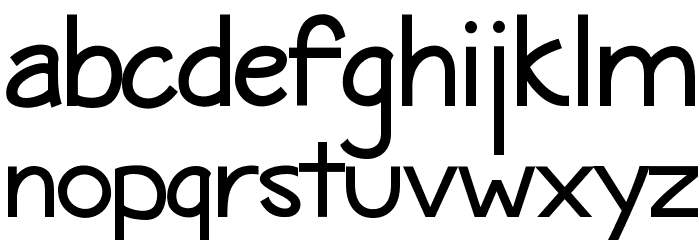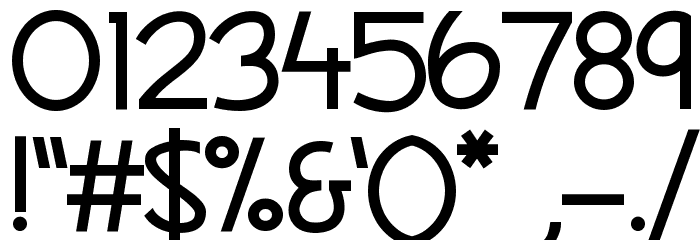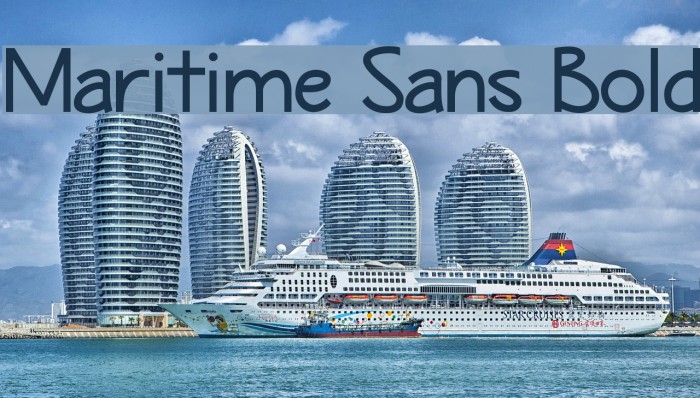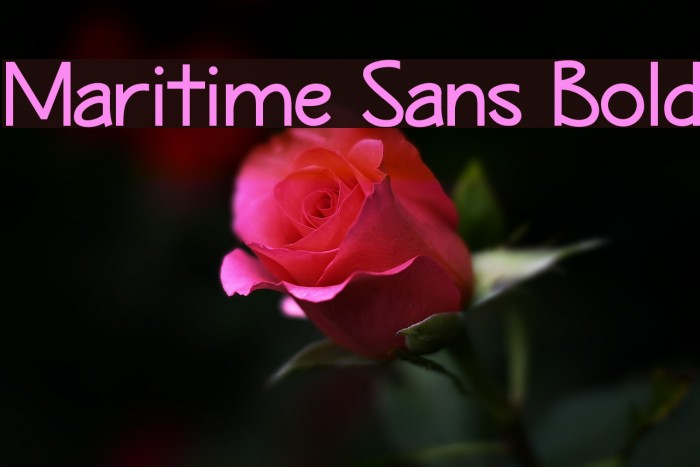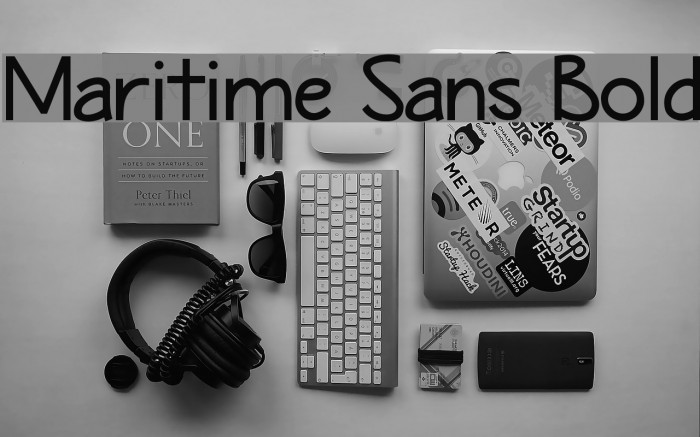
Maritime Sans Bold Font
This font features a clean and modern sans-serif style with bold, uniform strokes. The characters are well-proportioned, offering a harmonious balance between height and width. The uppercase letters are slightly taller than the lowercase, providing a clear distinction. The numbers are consistent in size with the uppercase letters, ensuring readability. Special characters are designed with the same boldness, maintaining uniformity across the set. The overall appearance is sleek and professional, making it suitable for various applications.
A bold, modern sans-serif font with clean lines and uniform strokes.
- Proposed Projects: Ideal for branding, headlines, advertising, and digital media where a modern and bold statement is needed.
- Use Case: Headlines, Logos, Branding